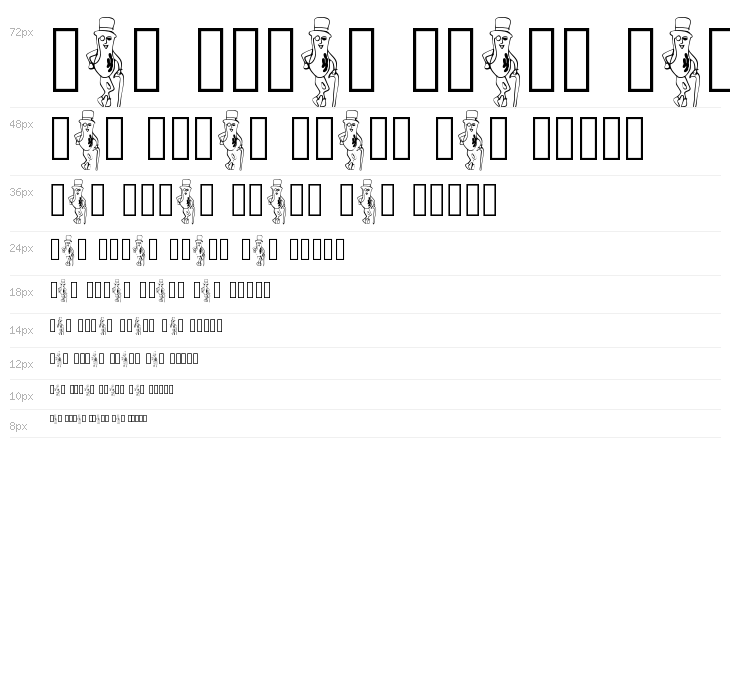
Mrpeanut Font
Mrpeanut Description
This font features a playful and whimsical design, incorporating a character that resembles a peanut with a monocle and top hat. The letters are represented by this character in various poses, creating a unique and entertaining visual experience. The font is highly decorative and not suitable for traditional text applications. It is designed to capture attention and add a humorous or lighthearted touch to any project.
| Overall Style | Playful, Humorous, Novelty |
| Use Case | Logos, Decorative headings, Themed designs |
| Proposed Projects | Ideal for novelty items, children's books, playful branding, or themed event invitations. |